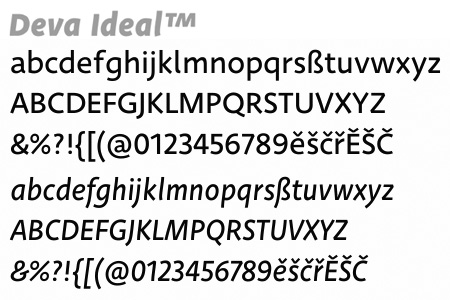
Deva Ideal (Stormtype)
Deva Ideal was inspired by the beauty of a women. The impulse was
not only an effort to create a new typeface. It was objectifing the beauty
into a visual form. And this is how the typeface was born. Instead of
imitating the shapes of woman body or other formal attributes, Deva
Ideal is an abstract expression of the woman beauty.
The unique character of the typeface is achieved by the use of soft,
almost invisibly bent strokes. This is one of the priorities of the
typeface - not to disturb the eye of the reader with the odd design
details. Deva Ideal excels in her cold beauty and shows her sex
appeal. These soft curves differ Deva Ideal from the masculine and
technical shapes of the most used contemporary typefaces.
wer denkt sich eigentlich die grauslichen Texte aus? Wenn das wirklich "inspired by the beauty of a women" (müsste btw. woman heißen) ist dann war das wohl ein sehr breites und rundes Exemplar Weib. "Beauty" liegt wie so oft wohl auch hier im Auge des Betrachters.
Höhö... ich dachte exakt das gleiche, als ich den Text las.
"Sex sells" oder so? Pffftt...
Mit einem Urteil halte ich mich zurück. Eine Grotesk halt...